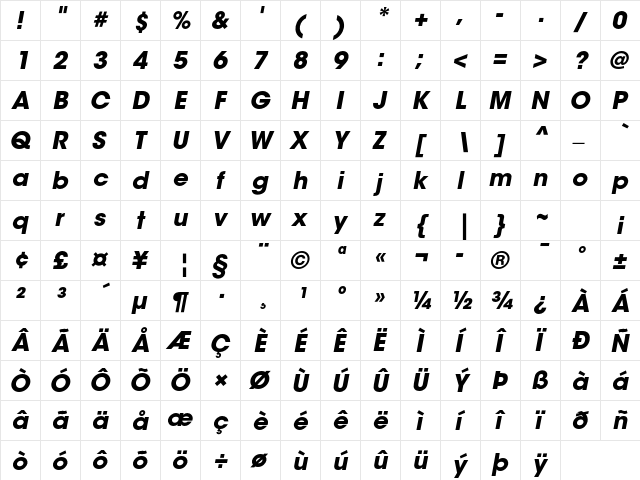
ITC Avant Garde Gothic Std Bold Oblique Font Preview
| Designer | Herb Lubalin, Tom Carnase, Ed Benguiat, Adobe Type Staff |
Design Context for ITC Avant Garde Gothic Std Typeface
ITC Avant Garde Gothic Std takes a clean, functional approach — its unadorned letterforms prioritise legibility and work reliably across screen and print environments. The dynamic lean of this cut emphasises speed and emphasis in any layout. The heavy weight commands attention and anchors typographic hierarchies.
Well-suited to navigation labels, product packaging, and anywhere legibility at scale is essential.
Font Pairing: Use ITC Avant Garde Gothic Std for headlines alongside a lighter-weight sans or serif for body copy to establish clear visual hierarchy.
Pro Tip: Use ITC Avant Garde Gothic Std for UI labels, navigation, and short-form body copy where clean legibility is the priority.